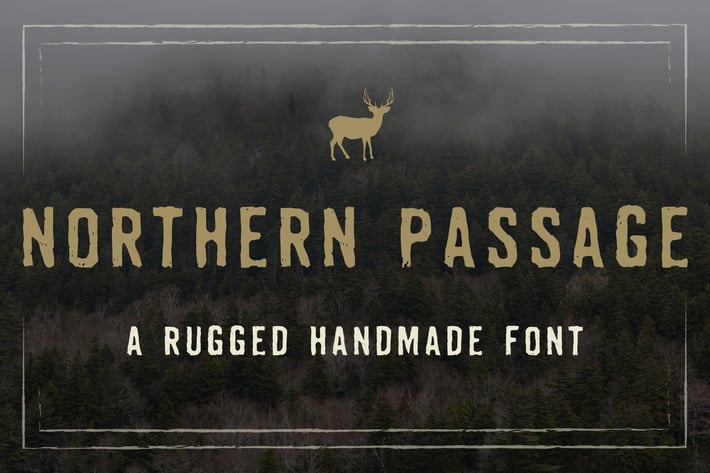
Northern Passage Font
Northern Passage is a handmade font inspired by a love of camping and hiking with my family. It has a unique weathered appearance like you might see on an old cabin deep in the forest. This is an all-caps display font that would be perfect for any design that needs a rustic, woodsy feel.